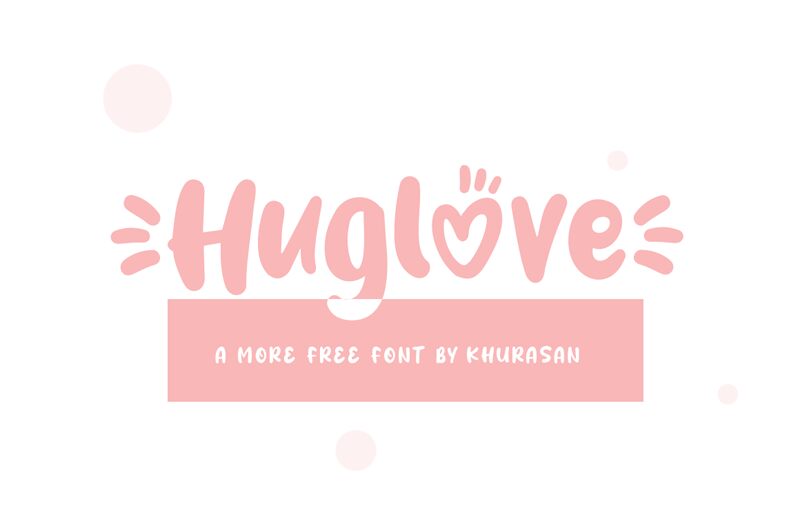
Introducing Huglove, a bold cartoon display font designed by Khurasan. Perfect for crafting fun and engaging titles, logos and posters, Huglove adds a vibrant touch to any project. Try it out to add some personality to your next design!
Huglove